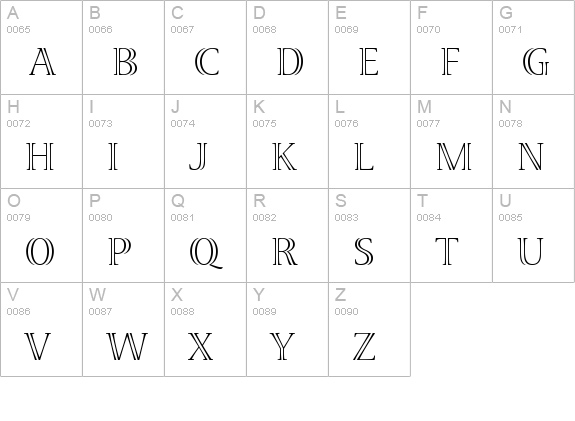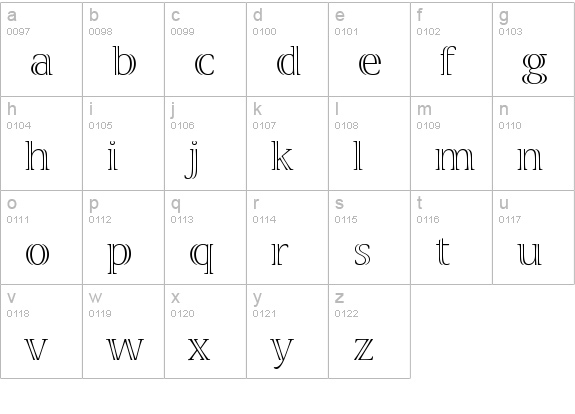
Viva Std Light Font Details
Viva Std Light is a refined, elegant variant in the Viva typeface family \xE2\x80\x94 well suited to elegant body text, refined sub-headings, and luxury branding.
The Viva Std Light font is a stunning and elegant typeface that exudes sophistication and grace. Its clean and modern design makes it perfect for a wide range of projects, including branding, packaging, advertising, and more. With its light weight, Viva Std Light offers a subtle and delicate appearance, adding a touch of refinement to any design. The font's well-balanced letterforms and smooth curves create a harmonious and pleasing visual experience, making it a popular choice among designers and creatives. One of the best things about Viva Std Light font is that it is free! Yes, you read that right. This incredible font is freely available to download at FontsMarket.com. This means that you can enhance your projects without spending a dime, making it a fantastic option for those on a budget or simply looking for high-quality fonts without the price tag. Whether you're working on a professional project or a personal endeavor, Viva Std Light font will elevate your designs to new levels of sophistication. Its versatility and timeless beauty make it suitable for a wide variety of applications, ensuring that it will remain a go-to choice for designers for years to come. So why wait? Download Viva Std Light font today from FontsMarket.com and unleash your creativity with this remarkable and freely available typeface. With its impeccable style and its cost-free nature, it is surely a font that you don't want to miss out on.